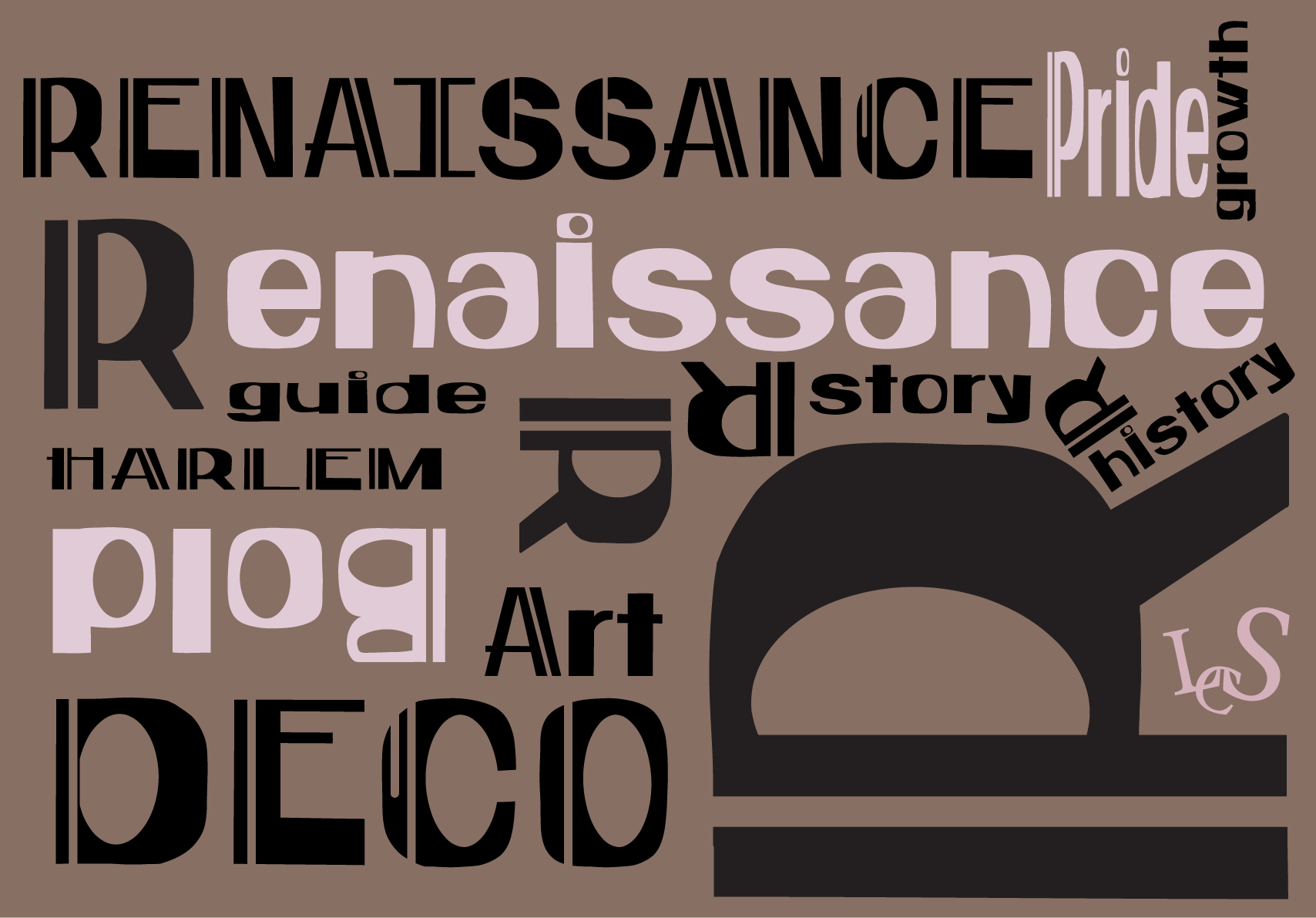
Renaissance Hand-Drawn Font
Renaissance, a hand-drawn font, is the ideal choice when you want your design to evoke a sense of organic and meaningfulness.
Authentic Branding: Create logos and packaging that have that desirable handmade touch. Bold Quotes & Art: Make posters or social media graphics that really stand out. Digital Scrapbooking: Add unique, powerful titles to your digital projects.